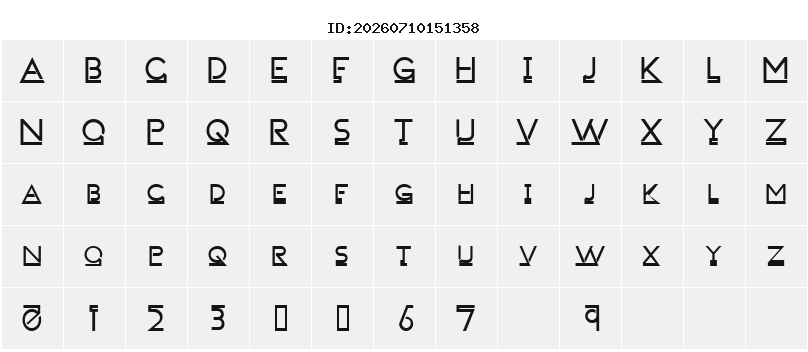
FailedFont 1.ttf is a modern, elegant sans-serif font designed for ultimate readability and visual harmony. Perfect for branding, headlines, web design, and print materials.